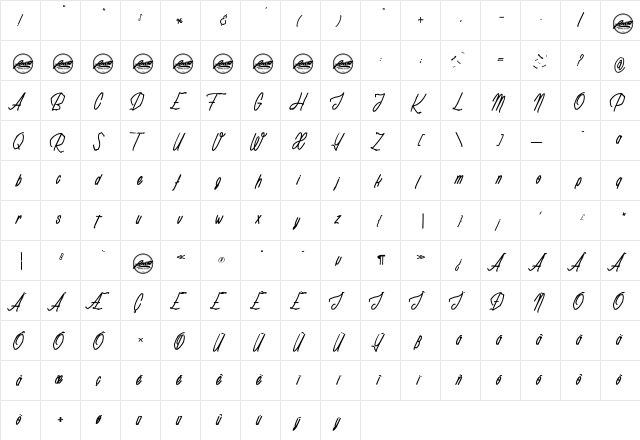
Rotten Pumkin_PersonalUseOnly Regular
| Foundry | dcoxy Medina Gregory |
| Designer | dcoxy Medina Gregory |
Design Context for Rotten Pumkin_PersonalUseOnly Typeface
Rotten Pumkin_PersonalUseOnly is a composed and adaptable typeface that performs quietly and consistently across a wide range of design contexts.